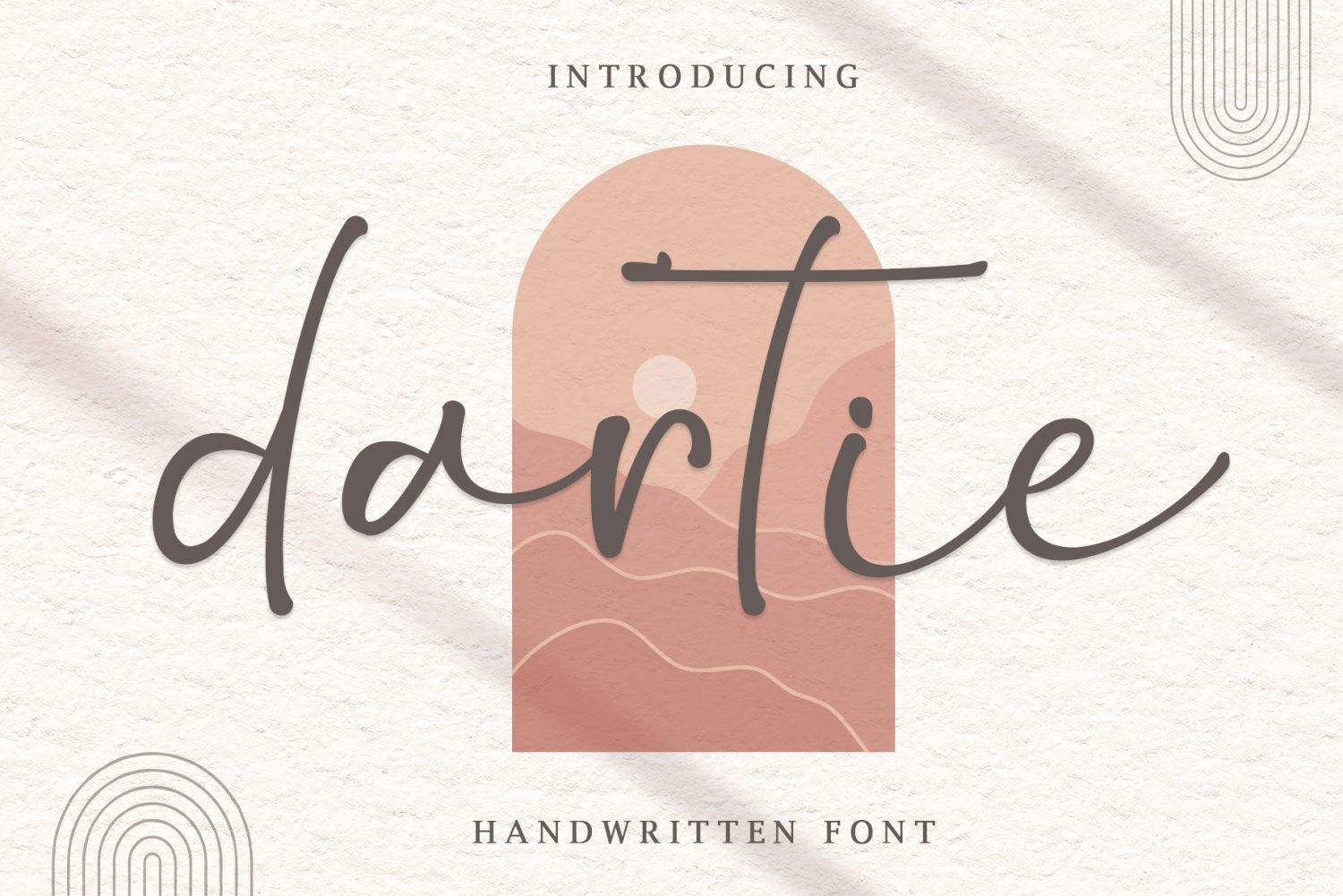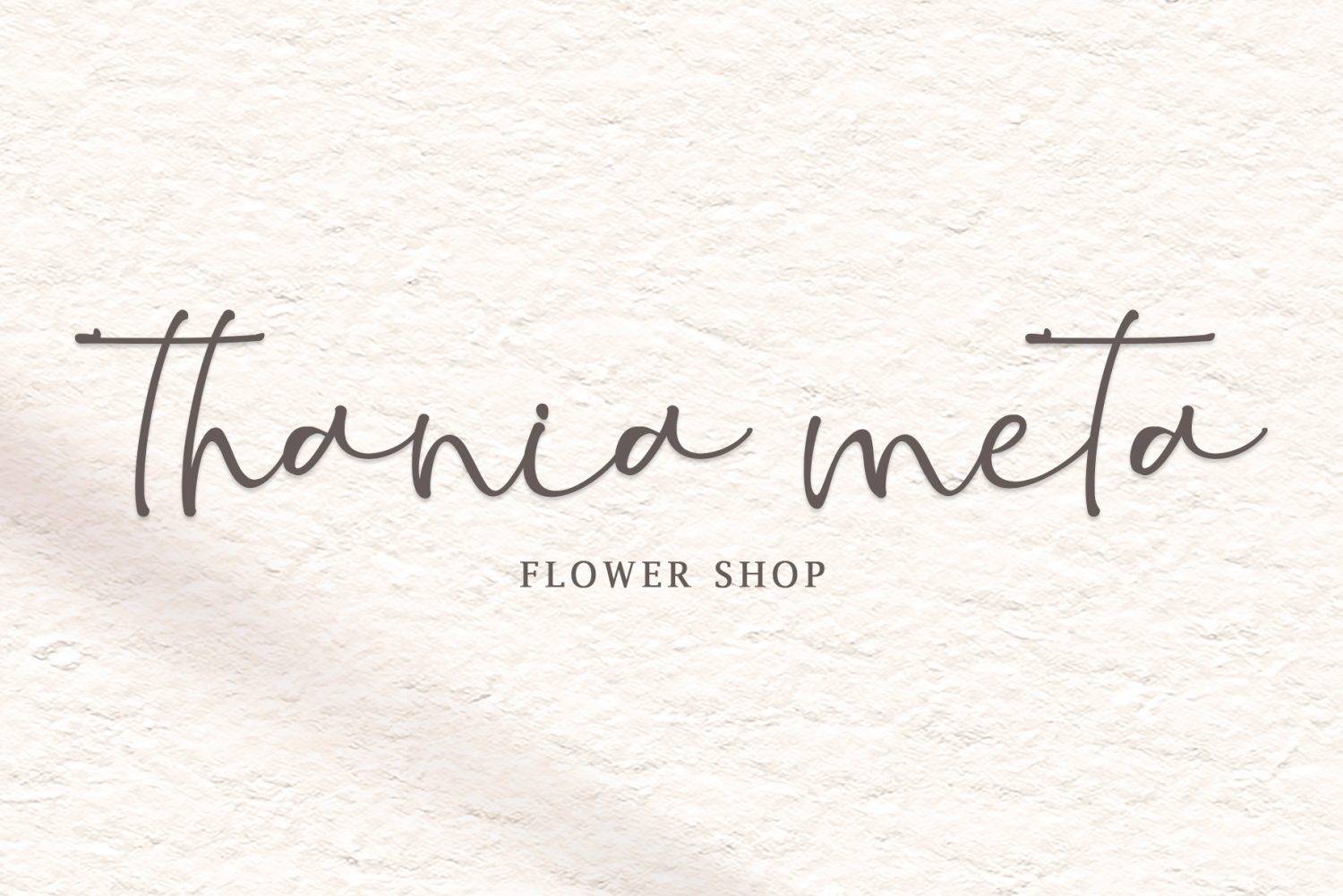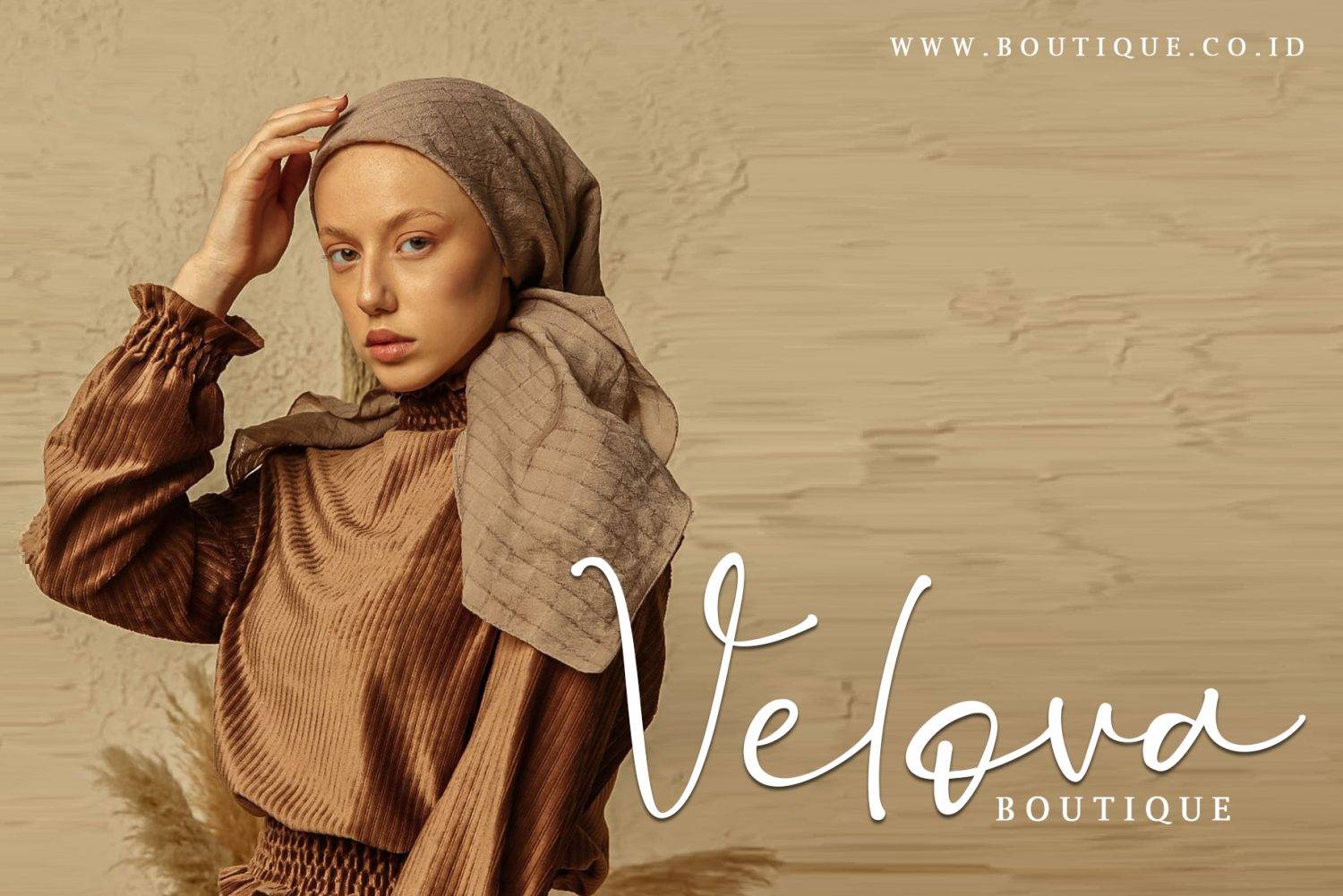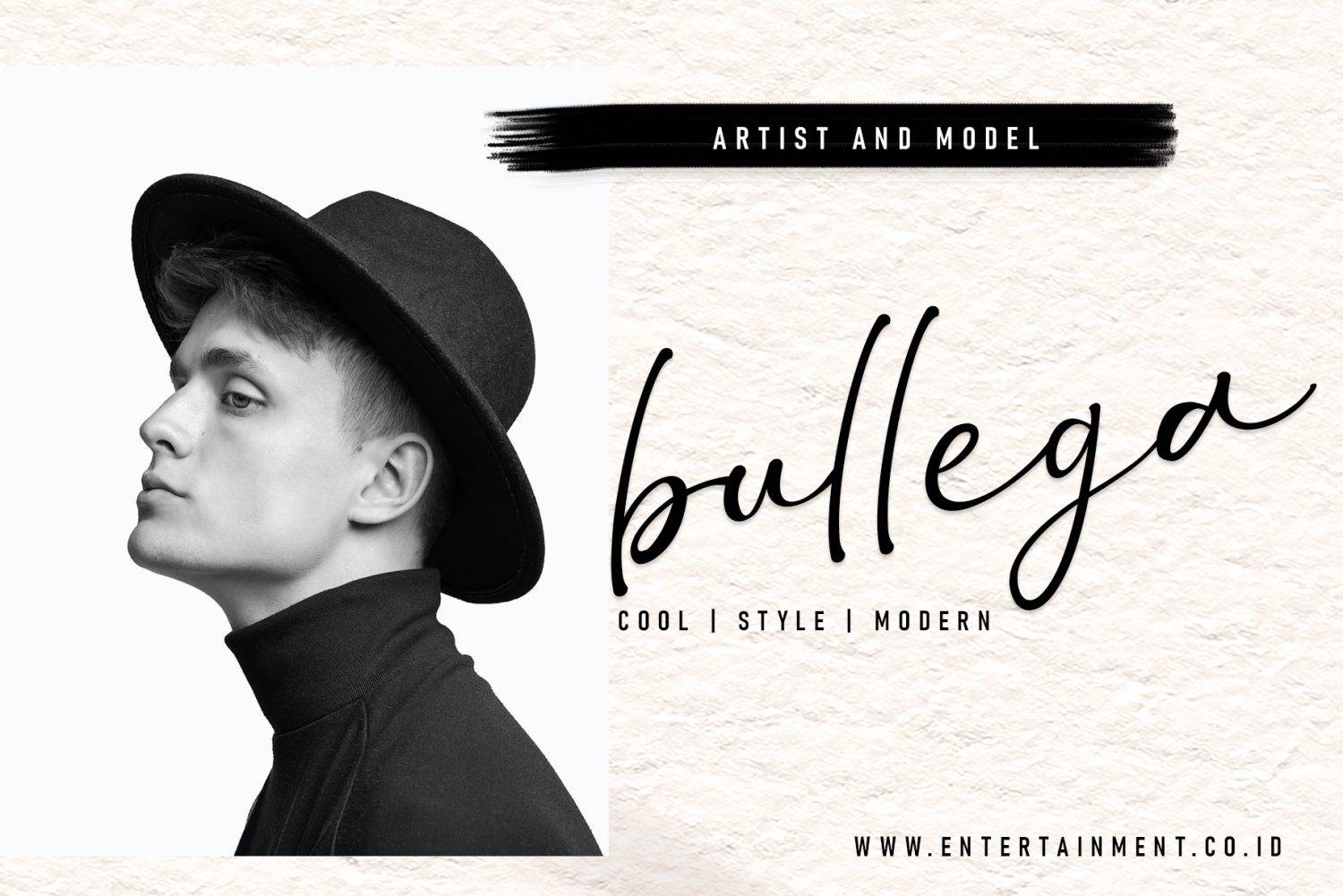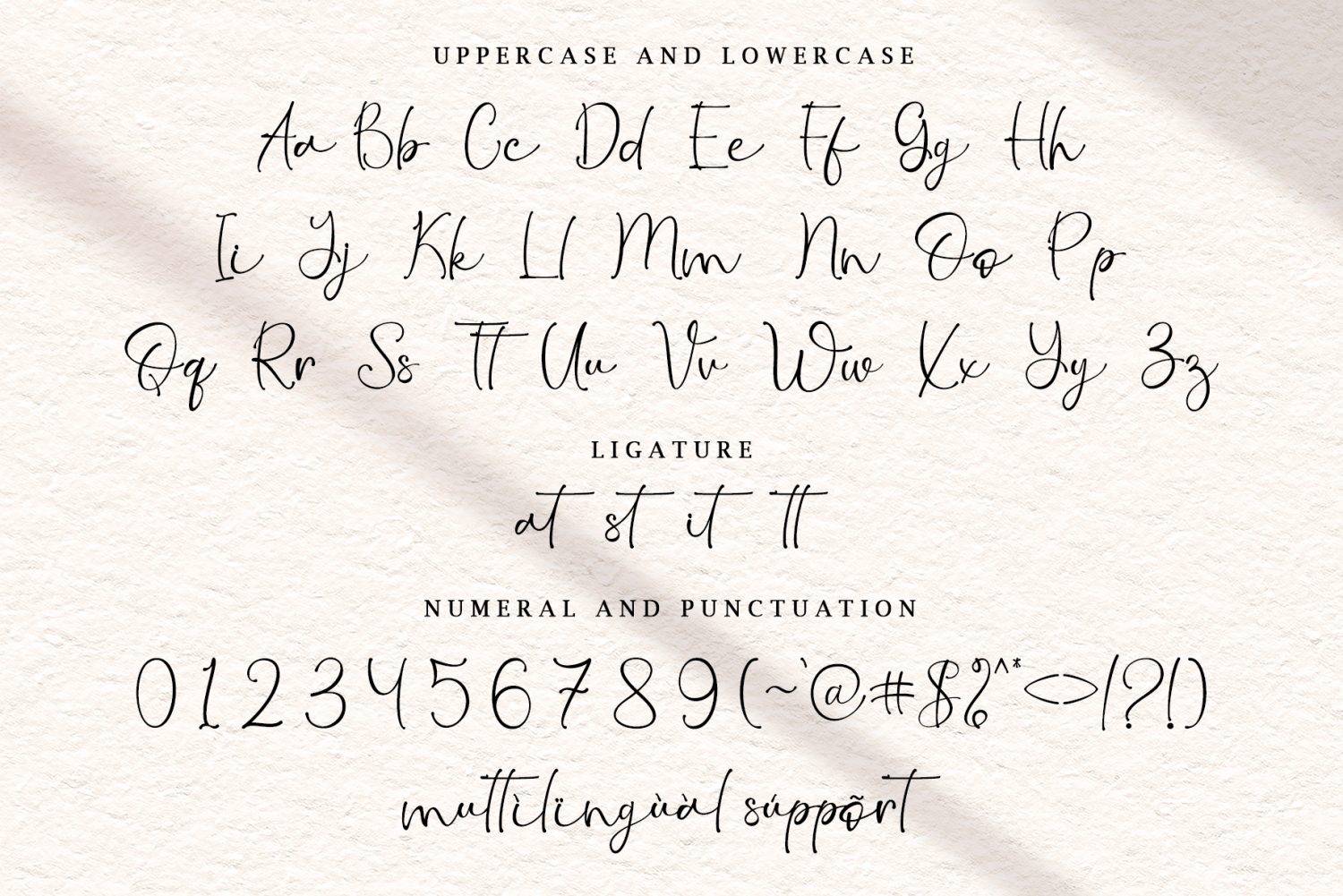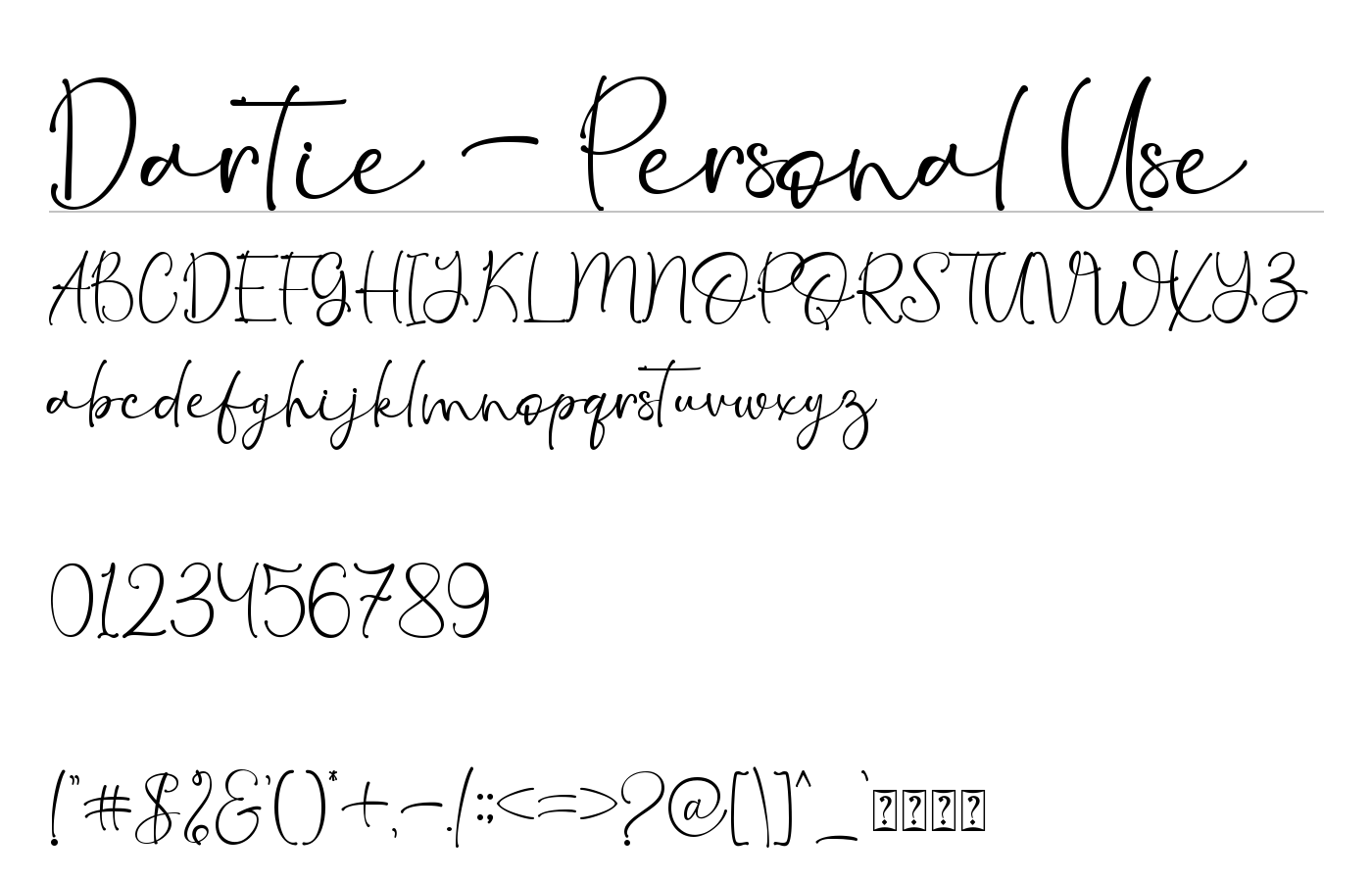
Dartie Font is a delicate and elegant handwritten script with a light, airy feel and graceful letterforms that flow smoothly. Its tall, narrow characters and subtle variations in stroke width give it a refined, personal touch, making it ideal for invitations, branding, and creative projects seeking a warm and sophisticated style. This font works beautifully in designs that want to evoke charm and a handcrafted, intimate atmosphere.
Dartie Font
About Dartie Font
| Font family | Dartie Font |